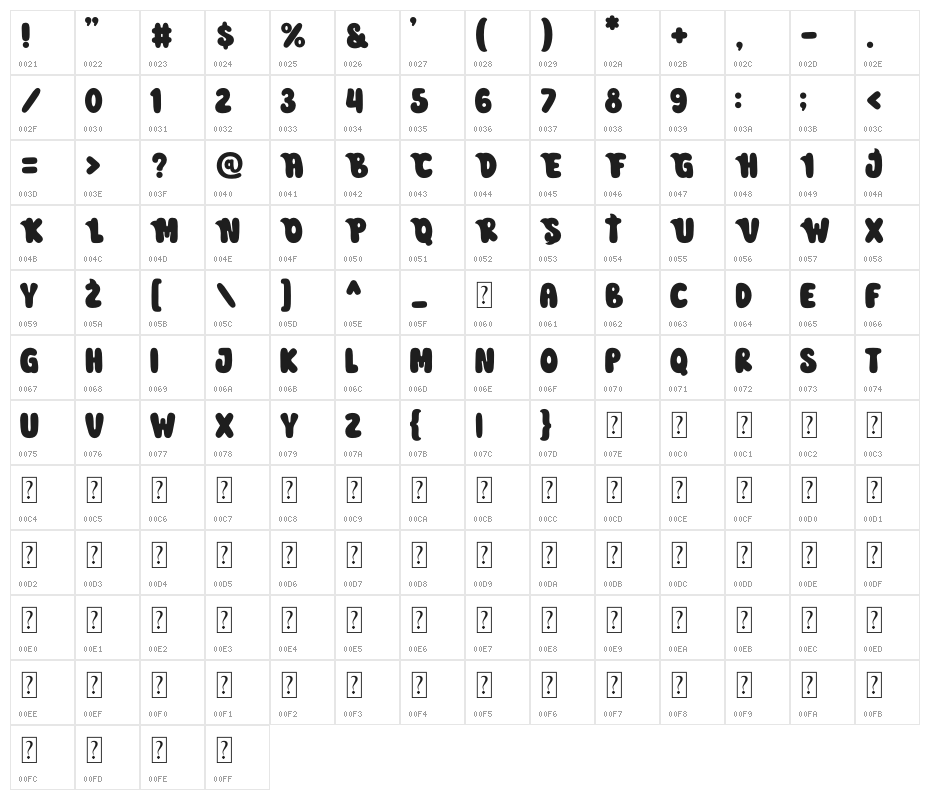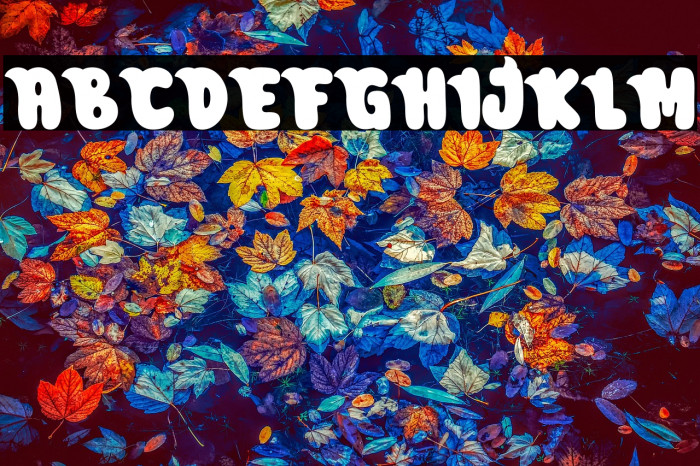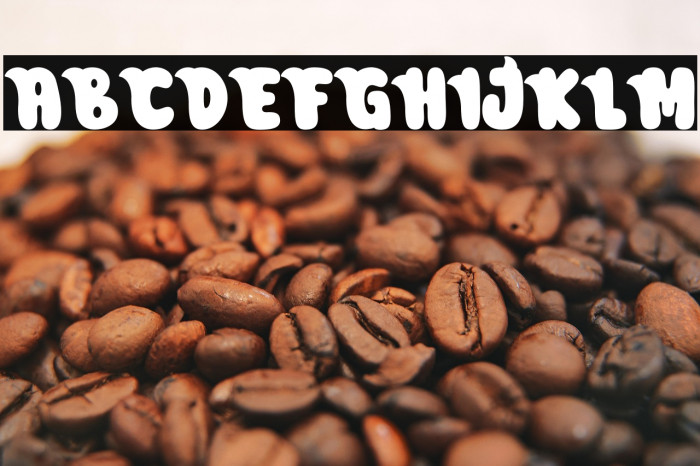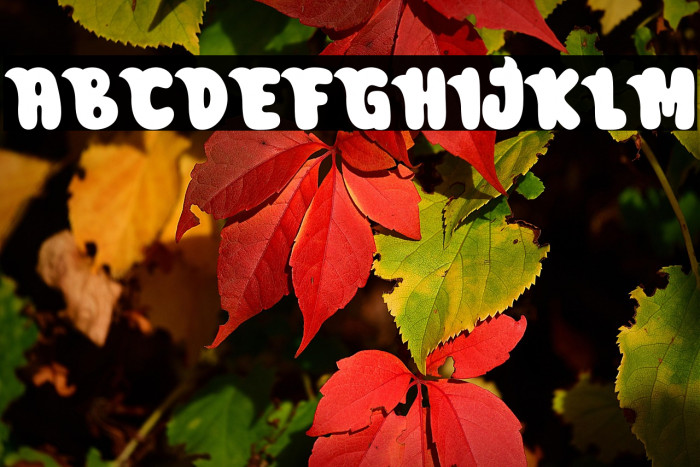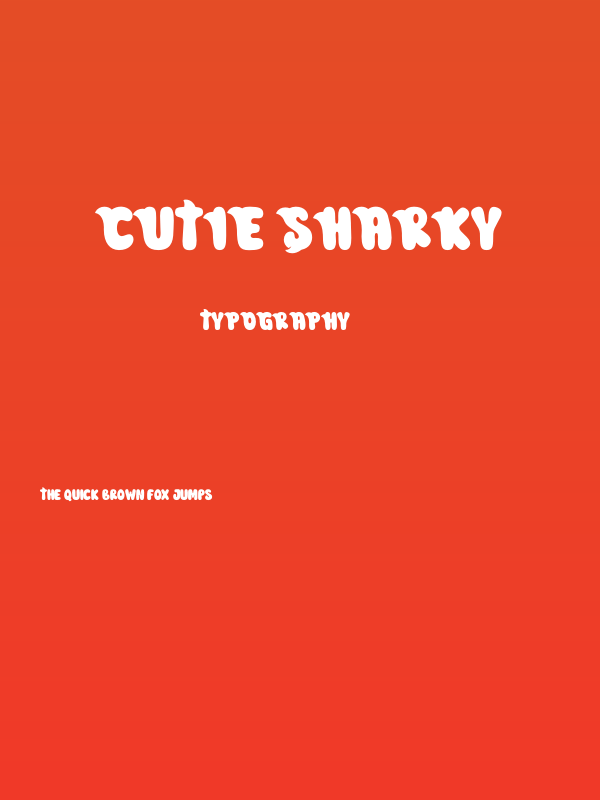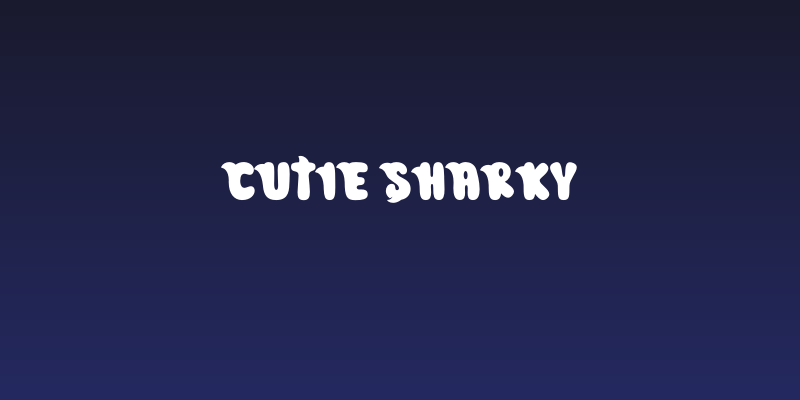
Cutie Sharky Font
Cutie Sharky Description
This playful and bold font features rounded, bubbly characters that exude a sense of fun and whimsy. The letters are thick and uniform, with a consistent stroke width that gives the font a cohesive and solid appearance. The rounded edges and lack of sharp angles contribute to a friendly and approachable feel. The numbers and special characters maintain the same playful style, making the font versatile for various uses. Its boldness ensures high visibility, making it suitable for eye-catching designs.
| Proposed Projects | Ideal for children's books, playful branding, party invitations, and eye-catching posters. |